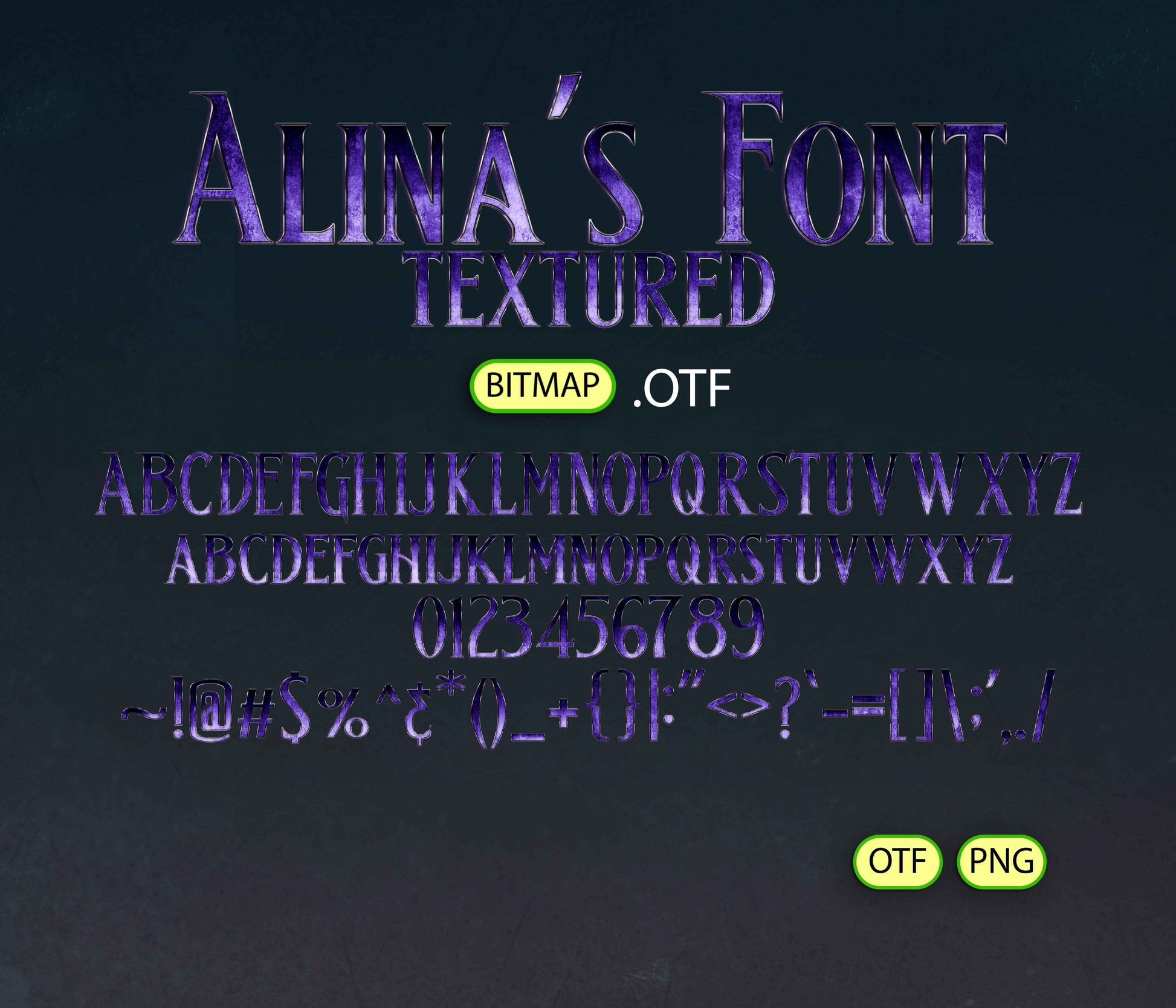
Mystic Chronicles Font Textured
Mystic Chronicles Textured Font
Enter the shadowy realm with our Mystic Chronicles font, a journey into witchcraft and dark secrets. Inspired by a mysterious character, this font captures the essence of arcane knowledge. It's a tribute to a captivating villain, offering fans a chance to immerse in the dark arts.
What is the Mystic Chronicles font?
Imagine a typeface mirroring occult allure. This font embodies sinister elegance with stylized letters evoking ancient runes. Its design draws from a dark atmosphere, capturing spellcasting prowess. An extensive character set allows users to channel this power.
The Mystic Chronicles font is more than a tool; it's a gateway to a mysterious world. Perfect for personal projects, fan creations, or commercial endeavors, this font invites users to explore magic and manipulation with every letter. With its platform compatibility and versatility, Mystic Chronicles font ensures the legacy of dark magic continues to captivate and inspire.